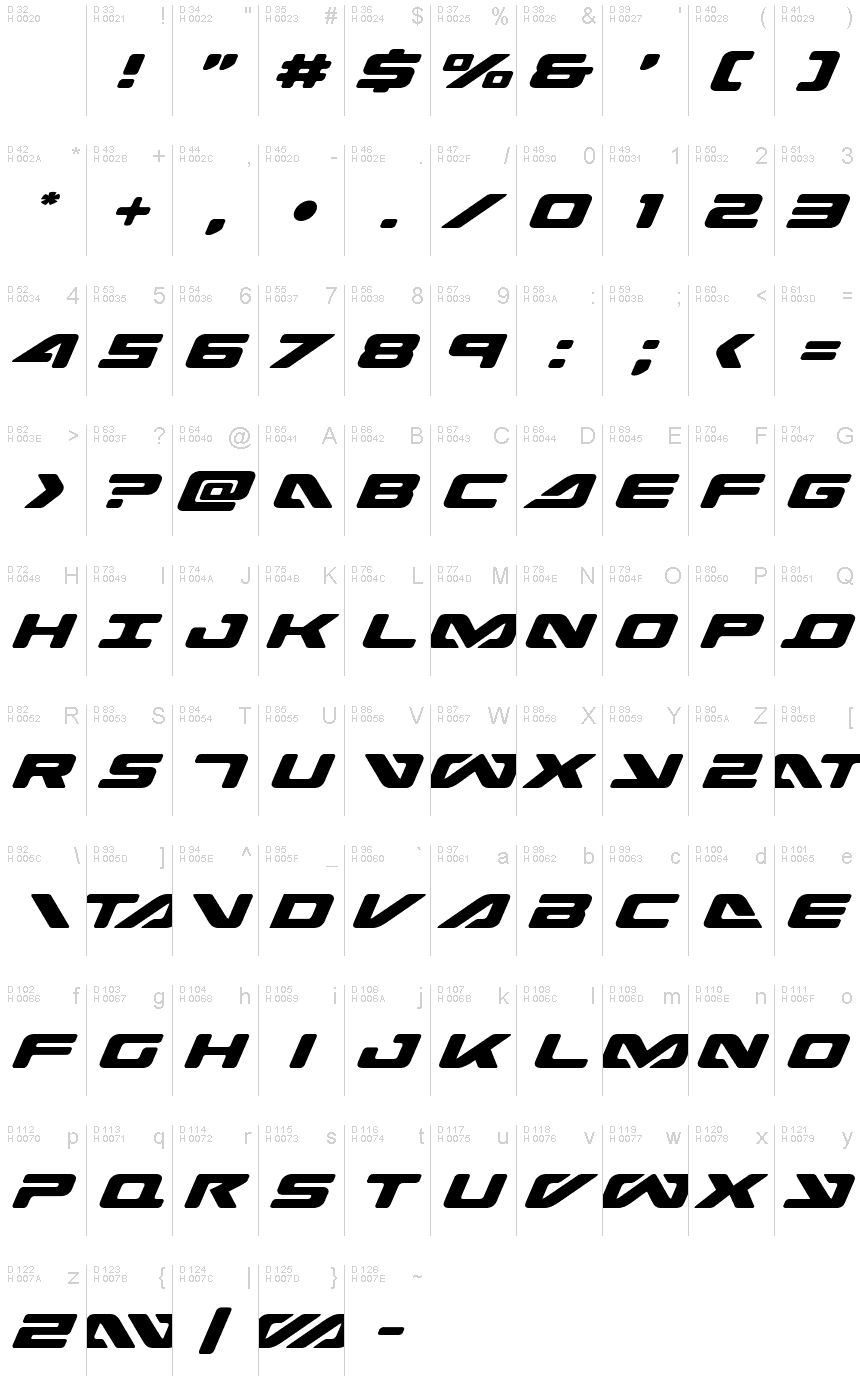
Sea-Dog Super-Italic
The Sea-Dog font family has a bold and super-italic display typeface that is perfect for futuristic projects. With its extra-expanded width, this font is a great choice for creating attention-grabbing designs such as movie posters, magazine covers, website headers, and more. Designed by Iconian Fonts, the Sea-Dog Super-Italic adds a unique touch to any project with its sleek and modern look. This font's versatility allows it to be used in various creative fields such as fashion design, gaming graphics, and branding materials. Give your next project an edge by incorporating the Sea-Dog Super-Italic into your design.
Sea-Dog Super-Italic